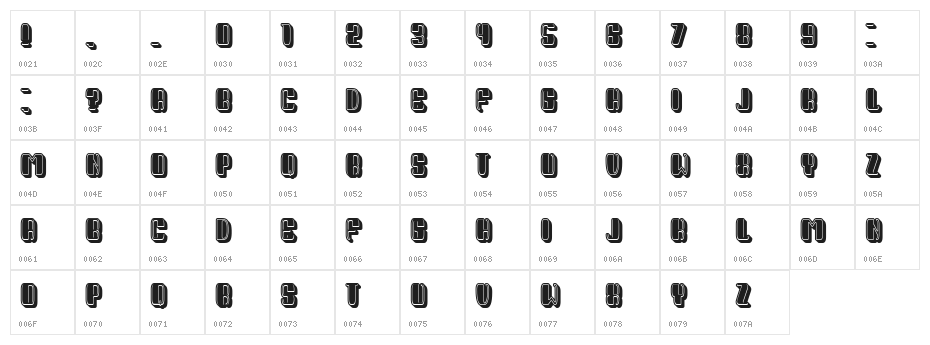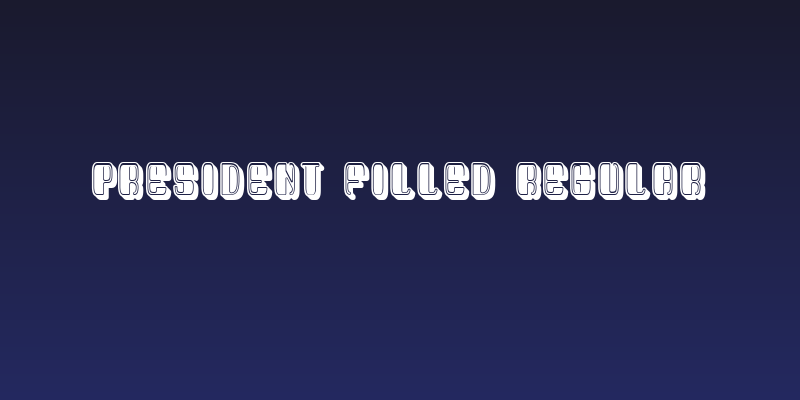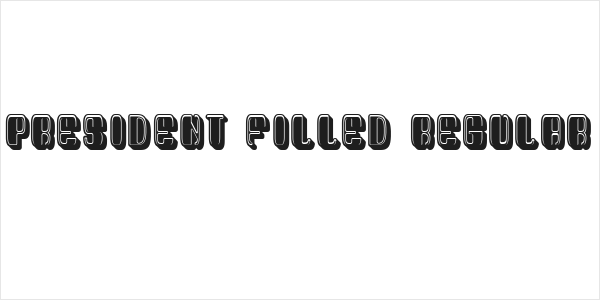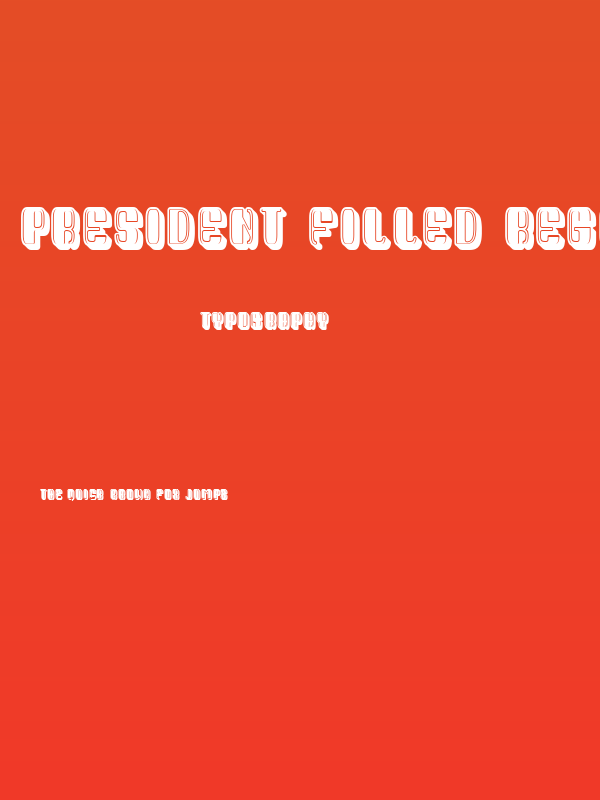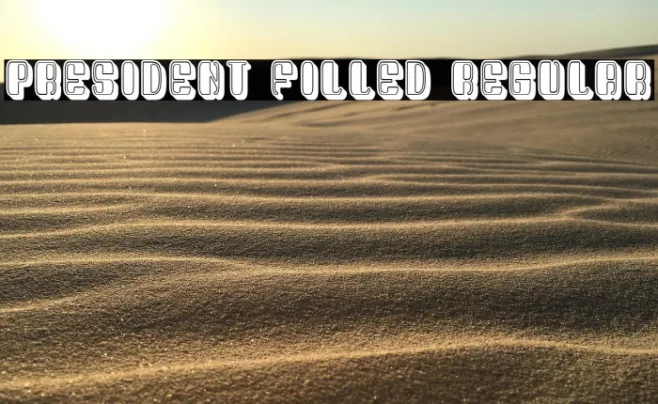
President Filled Regular Font
President Filled Regular Description
This font features a bold, filled style with a distinct outline that gives it a three-dimensional appearance. The characters are uppercase, with a strong geometric influence, and the design incorporates rounded edges and a consistent stroke width. The font's playful yet structured look makes it suitable for eye-catching designs. The numbers and special characters maintain the same bold and outlined characteristics, ensuring a cohesive appearance across all glyphs. This font is ideal for projects that require a strong visual impact.
| Proposed Projects | Ideal for posters, headlines, branding, and any design requiring a bold statement. |